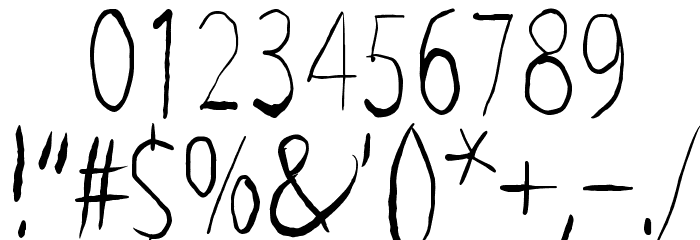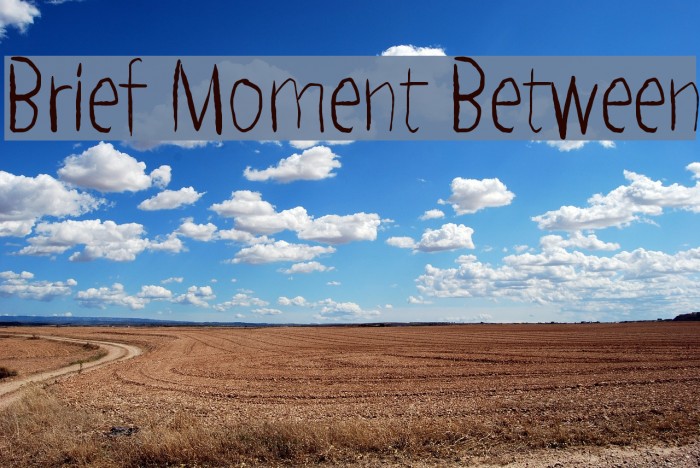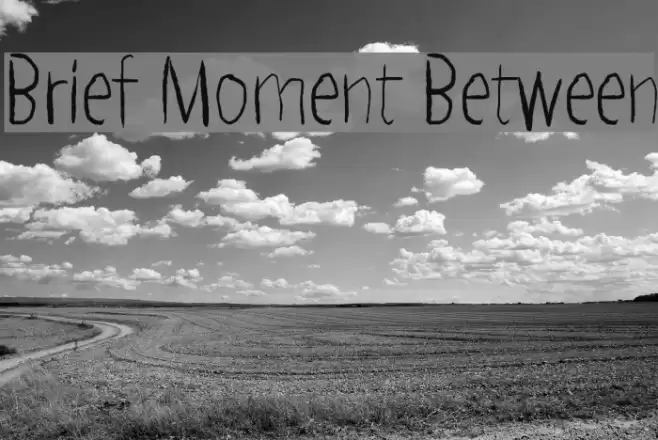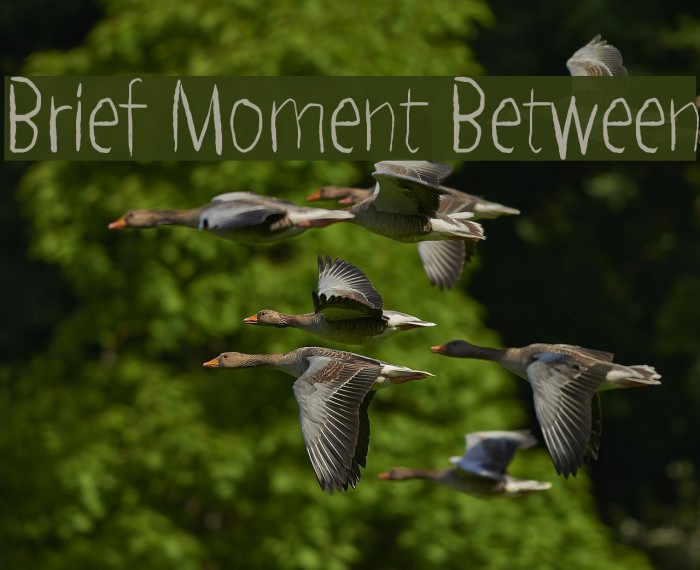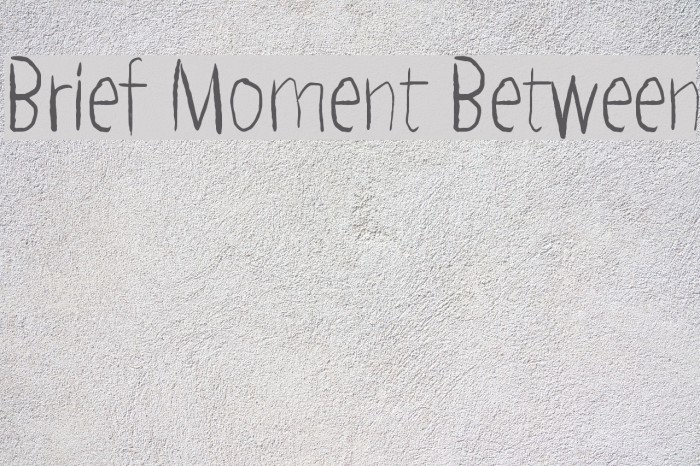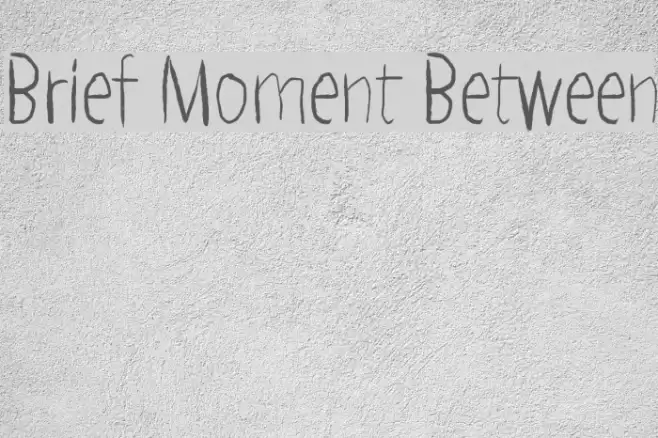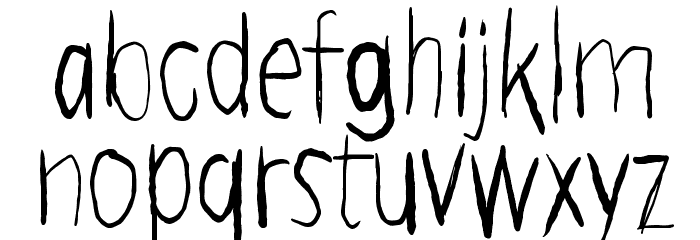
Brief Moment Between Font
Brief Moment Between Description
This font exhibits a hand-drawn, organic style with irregular strokes and a playful, artistic flair. The characters are unevenly weighted, giving a dynamic and lively appearance. The uppercase letters are tall and slightly narrow, while the lowercase letters maintain a consistent height, adding to the whimsical nature. Numbers and special characters follow the same hand-crafted aesthetic, with varying stroke thicknesses that suggest a casual, informal tone. This font's unique character makes it ideal for creative projects that require a personal touch.
| Use Case | Logos, Posters, Artistic projects |
| Proposed Projects | Ideal for greeting cards, artistic posters, children's book illustrations, and creative branding. |